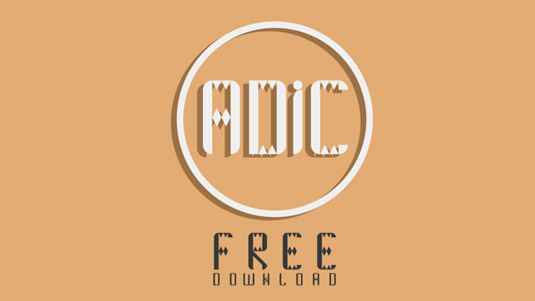
Font of the day: Adic
Adic by Martina Ginevra Albano
Today's font of choice is Adic by industrial designer Martina Ginevra Albano. "Adic is a free font based on a regular grid," she says, "please feel free to use it! Enjoy!"